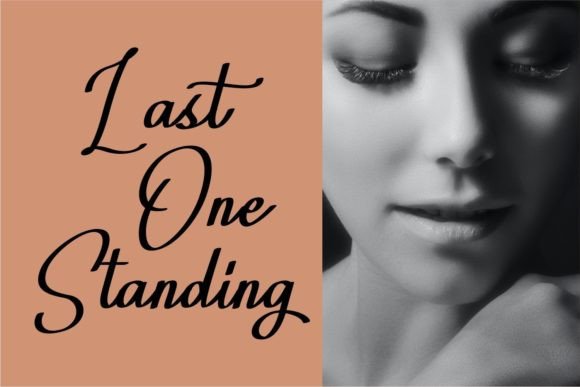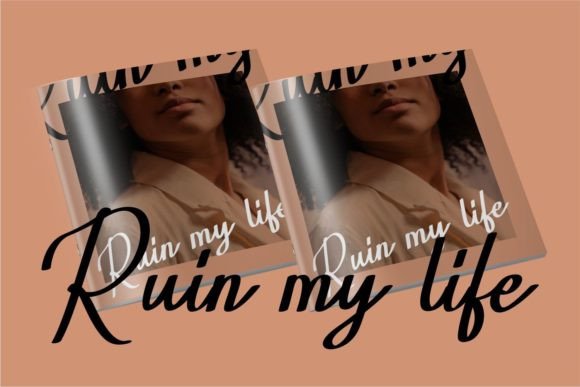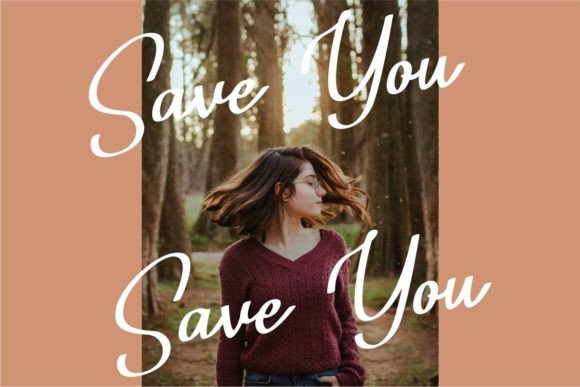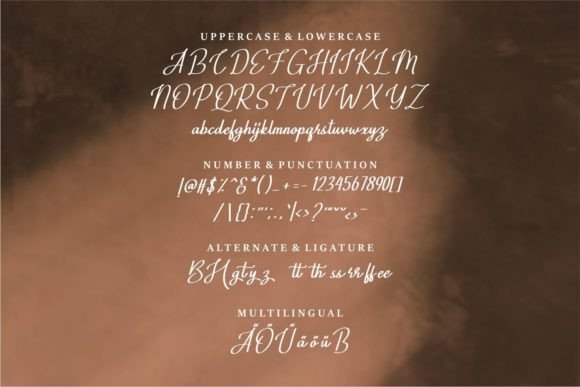
Introducing Halisty Font: Elevate Your Designs with Elegance and Sophistication
Are you looking for a font that embodies the essence of luxury and refinement? Look no further than Halisty Font, a stunning script font that is sure to elevate your designs to new heights. With its fluid, graceful strokes and delicate details, Halisty is the perfect choice for creating designs that exude a sense of timeless sophistication.
The Beauty of Halisty Font
Halisty Font is a masterclass in elegant design. Each letter is carefully crafted to create a sense of fluidity and movement, with smooth transitions between strokes that give the font a sense of organic beauty. The delicate details that adorn each letter add a touch of refinement and sophistication, making Halisty perfect for designs that require a high level of elegance.
Whether you’re creating wedding invitations, high-end branding materials, or simply looking for a font to add a touch of luxury to your designs, Halisty is the perfect choice. Its versatility and flexibility make it suitable for a wide range of applications, from digital designs to print materials.
Timeless and Sophisticated: The Key Characteristics of Halisty Font
So, what sets Halisty apart from other script fonts on the market? Here are just a few key characteristics that make it a standout:
- Fluid strokes: Halisty’s fluid strokes create a sense of movement and fluidity, giving the font a dynamic and elegant feel.
- Delicate details: The delicate details that adorn each letter add a touch of refinement and sophistication, making Halisty perfect for high-end designs.
- Timeless appeal: Unlike trendy fonts that quickly go out of style, Halisty has a timeless appeal that will ensure your designs remain elegant and sophisticated for years to come.
Halisty Font is a dream come true for designers and crafters who are looking for a font that can help them create stunning designs. Whether you’re a professional designer or a DIY crafter, Halisty is easy to use and versatile enough to suit a wide range of applications.
Here are just a few ways you can use Halisty Font in your designs:
- Wedding invitations: Create beautiful, elegant wedding invitations that set the tone for a sophisticated and luxurious wedding.
- High-end branding materials: Use Halisty to create high-end branding materials, such as logos, business cards, and letterheads, that exude a sense of luxury and refinement.
- Digital designs: Add a touch of elegance to your digital designs, such as social media graphics, blog headers, and email newsletters.
In conclusion, Halisty Font is a stunning script font that is sure to elevate your designs to new heights. With its fluid, graceful strokes and delicate details, Halisty is the perfect choice for creating designs that exude a sense of luxury and refinement. Whether you’re a designer or crafter, Halisty is a versatile and elegant font that is sure to become a favorite in your collection.